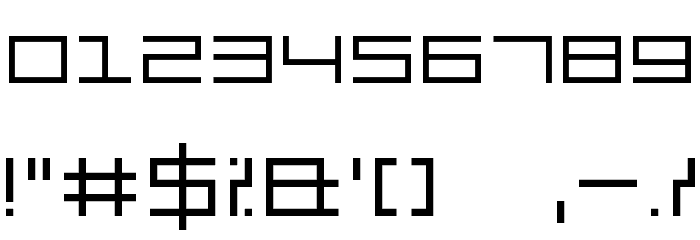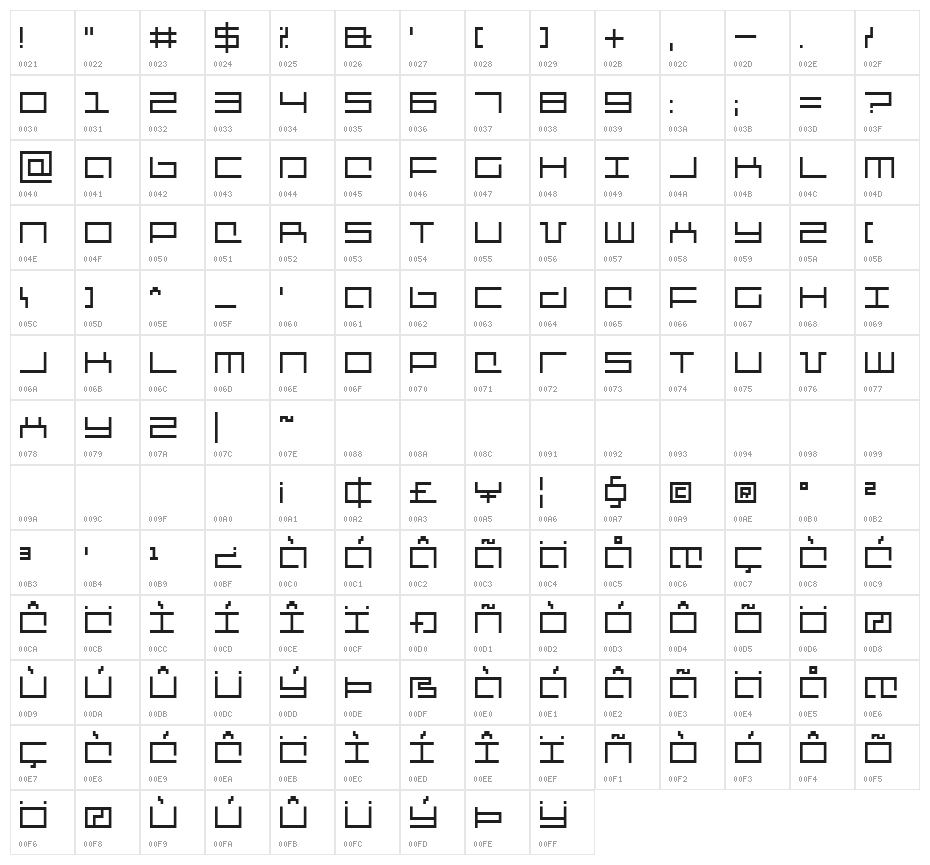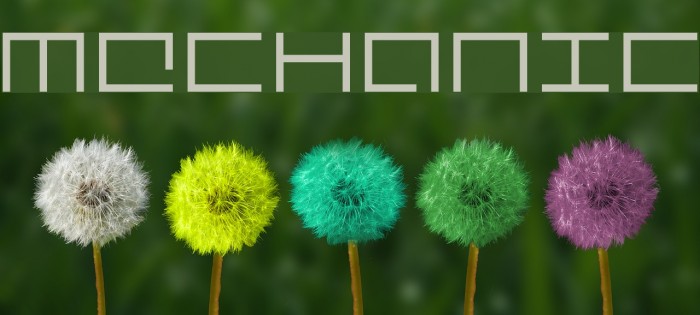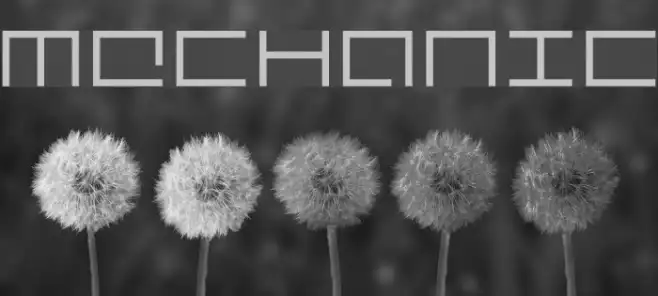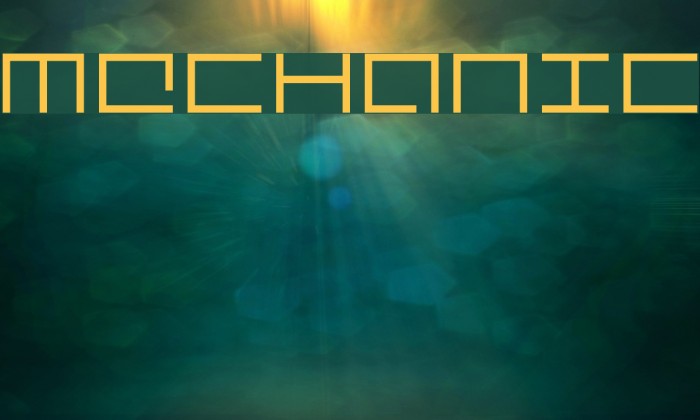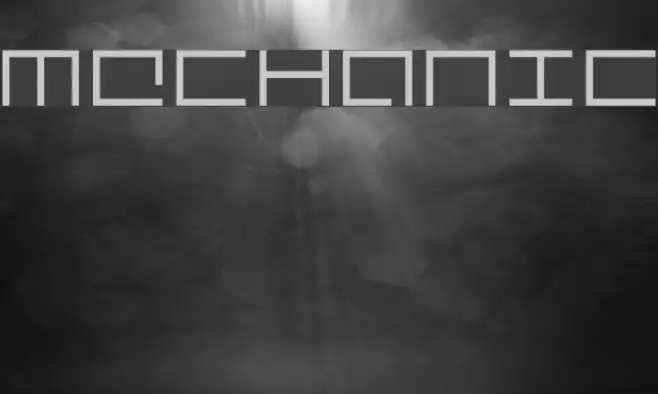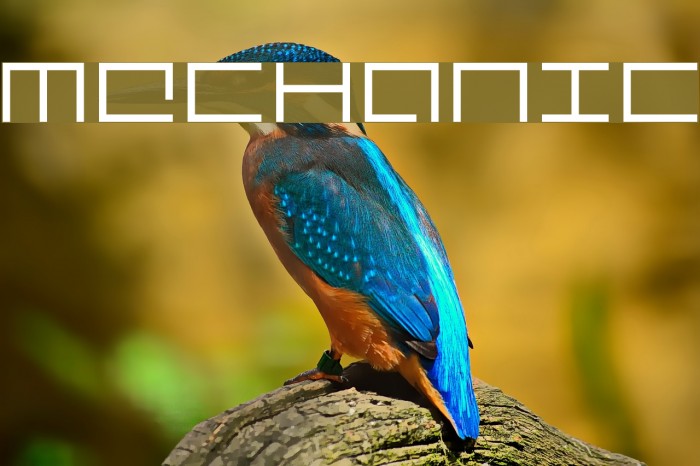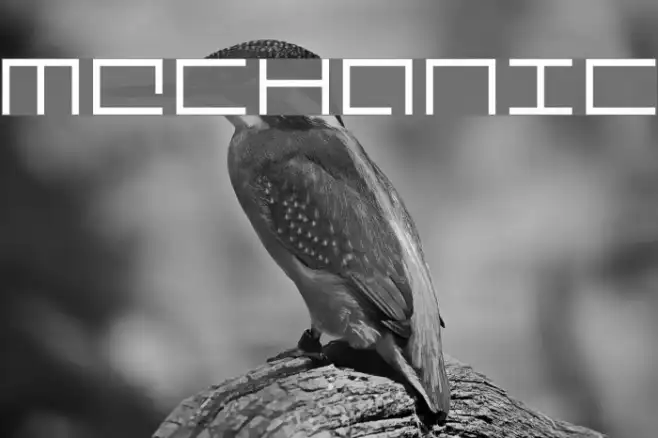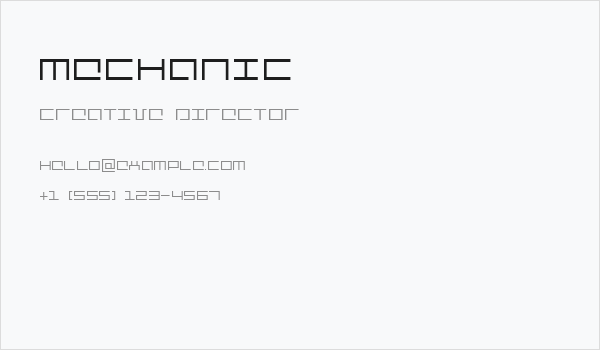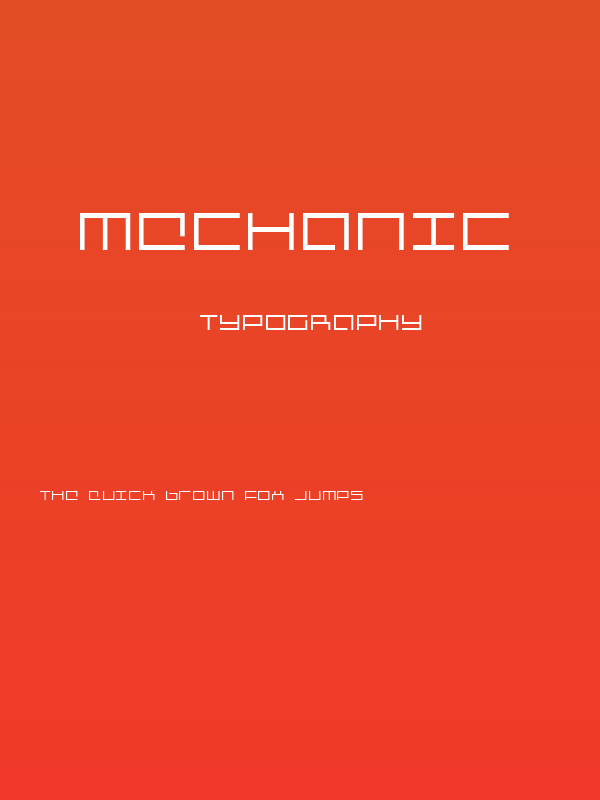
Mechanic Font
Mechanic Description
This font features a geometric and mechanical design, characterized by its square and angular shapes. Each character is constructed with a consistent stroke width, giving it a uniform and technical appearance. The letters are formed with straight lines and right angles, creating a futuristic and industrial feel. The font maintains a monospaced style, where each character occupies the same amount of horizontal space, enhancing its mechanical precision. The numerals and special characters follow the same design principles, ensuring a cohesive look across all elements. This font is ideal for projects that require a modern, tech-inspired aesthetic.
| Use Case | Logos, Interfaces, Coding |
| Proposed Projects | Ideal for technology branding, software interfaces, coding environments, and industrial-themed designs. |